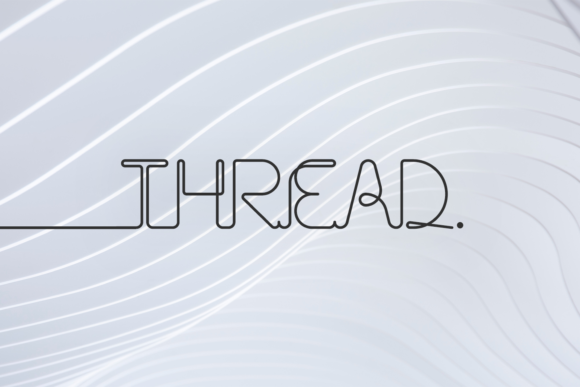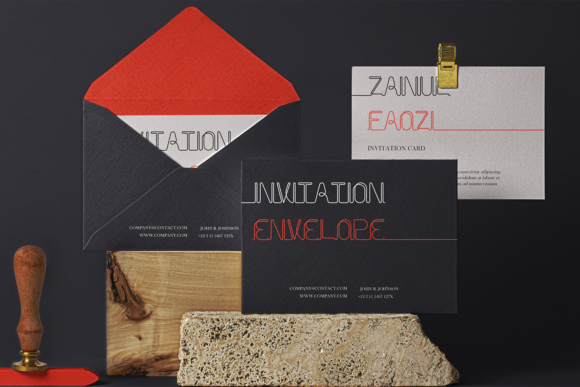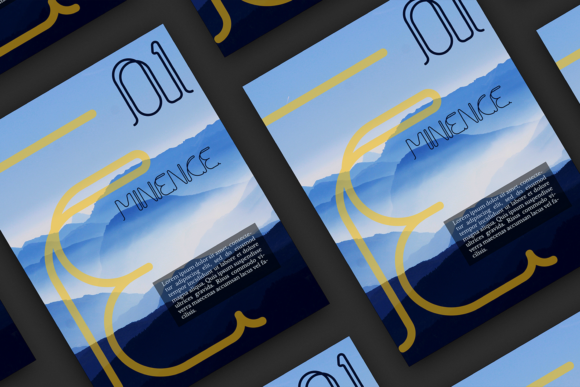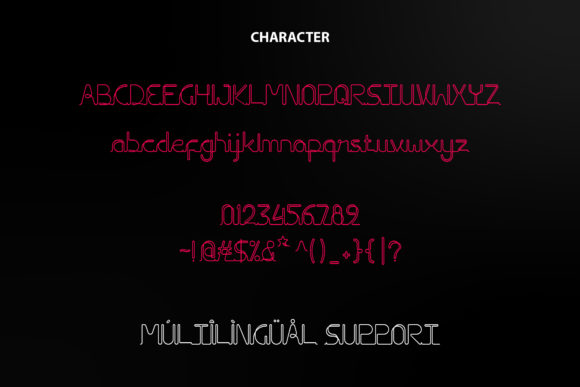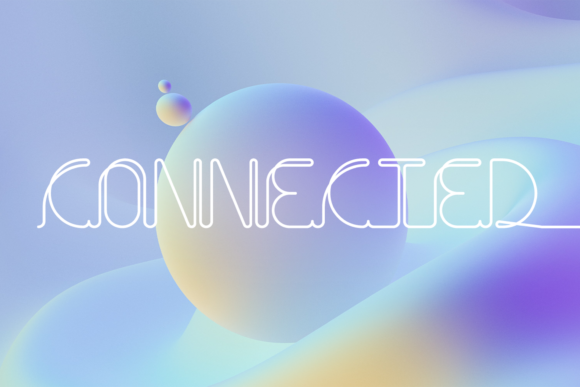
Introducing Benang Merah Font: Add a Touch of Whimsy to Your Designs
Are you tired of using the same old fonts in your designs? Look no further than Benang Merah Font, a cool and fun looking display font that’s sure to brighten up any project. With its whimsical and quirky style, this font is perfect for designers and crafters who want to add a touch of personality to their work.
What is Benang Merah Font?
Benang Merah Font is a display font that’s designed to make a statement. Its unique and playful style is inspired by the Indonesian phrase “benang merah,” which translates to “red thread.” This font is perfect for adding a pop of color and personality to your designs, whether you’re working on a logo, poster, or social media graphic.
Key Features of Benang Merah Font
- Whimsical and quirky style: Benang Merah Font has a unique and playful style that’s sure to stand out in any design.
- Display font: This font is designed for display purposes, making it perfect for headlines, titles, and other prominent text elements.
- Multilingual support: Benang Merah Font supports multiple languages, making it a great choice for designers who work with international clients or want to create designs that appeal to a global audience.
- Easily customizable: This font is easy to customize, allowing you to adjust the size, color, and style to fit your design needs.
Why Use Benang Merah Font?
So why should you use Benang Merah Font in your designs? Here are just a few reasons:
- Adds personality to your designs: Benang Merah Font is a great way to add a touch of personality to your designs and make them stand out from the crowd.
- Perfect for creative projects: This font is perfect for creative projects, such as posters, flyers, and social media graphics, where you want to make a bold statement.
- Easy to read: Despite its playful style, Benang Merah Font is easy to read, making it a great choice for designs where you need to communicate a message.
How to Use Benang Merah Font
Using Benang Merah Font is easy. Here are a few tips to get you started:
- Pair it with a simple font: Pair Benang Merah Font with a simple font, such as Arial or Helvetica, to create a striking contrast.
- Use it for headlines: This font is perfect for headlines and titles, where you want to make a bold statement.
- Experiment with colors: Benang Merah Font looks great in a variety of colors, so don’t be afraid to experiment and find the perfect hue for your design.
| Author | Patuh Karya |
Benang Merah Font is a cool and fun looking display font that’s perfect for designers and crafters who want to add a touch of whimsy to their designs. With its unique and playful style, this font is sure to brighten up any project and make it stand out from the crowd. So why not give it a try and see the results for yourself?